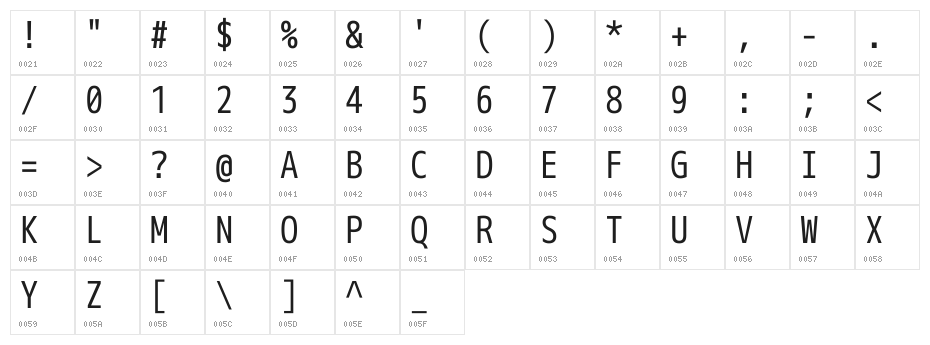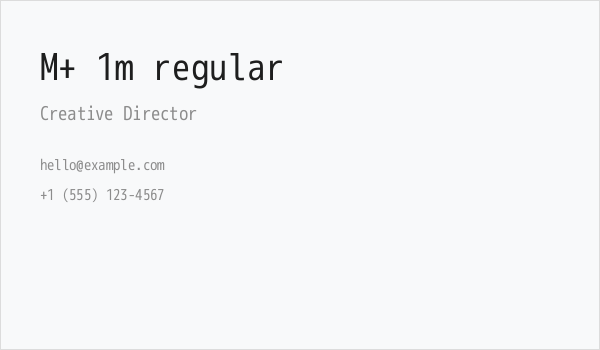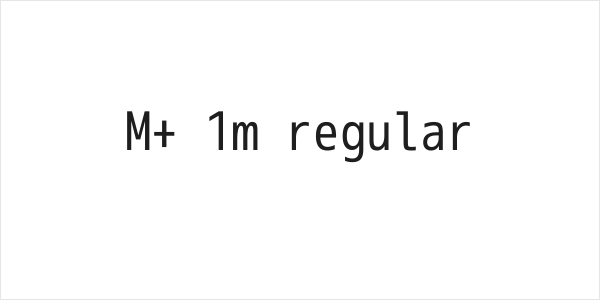
M+ 1m regular Font
M+ 1m regular Description
This font features a clean and modern sans-serif style with a uniform stroke width, providing a straightforward and professional appearance. The characters are well-proportioned, with a slightly condensed width that enhances readability while maintaining a sleek aesthetic. The uppercase letters are bold and assertive, while the lowercase letters offer a balanced and approachable look. Numerals are clear and distinct, making them suitable for various applications. The special characters are designed with precision, ensuring consistency across the typeface. Overall, this font is versatile and can be used in a wide range of design projects.